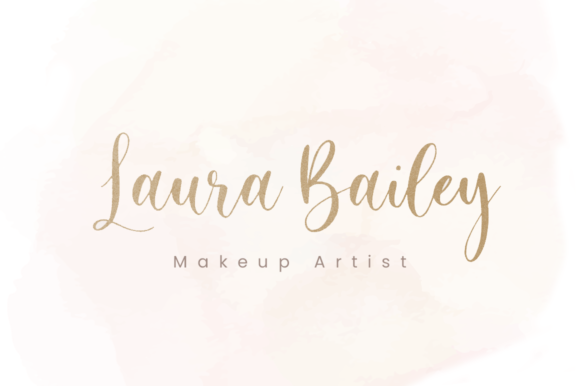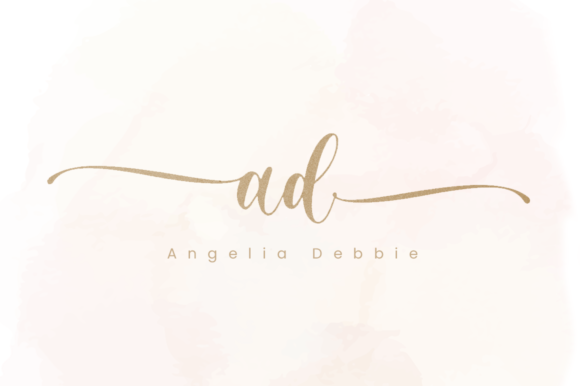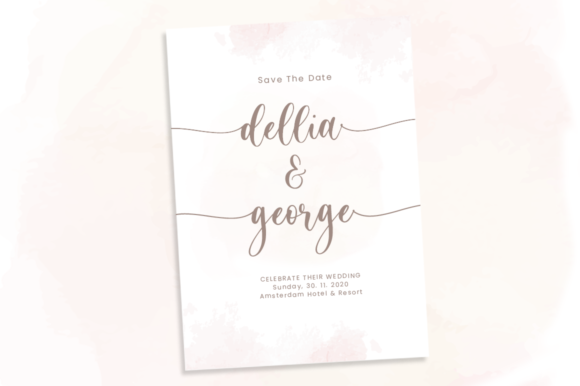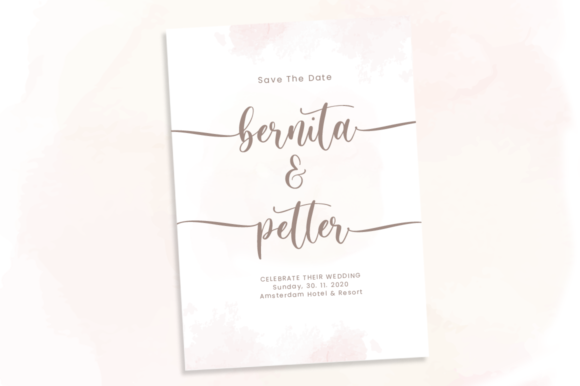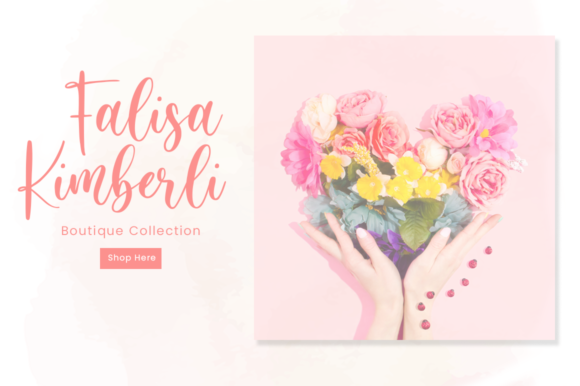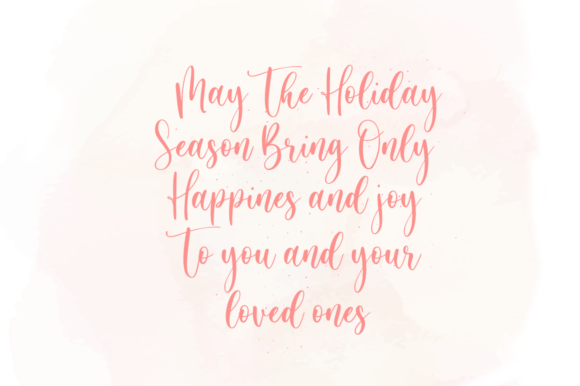
The Perfect Script for Your Most Cherished Moments
As the holiday season approaches, you can almost feel the excitement building up inside you. It’s the time of the year when creativity knows no bounds, and the world is full of possibilities. You’re browsing through a design blog, scrolling through Pinterest, or perhaps sketching out ideas in your notebook – and suddenly, you stumble upon the perfect script to elevate your holiday designs. It’s elegant, flowing, and exudes a sense of warmth and sophistication.
This is where the Holiday Party Font comes into the picture. Designed to add a touch of handwritten elegance to your designs, this beautiful script font is perfect for wedding invitations, thank-you cards, quotes, and so much more. With its varying baseline, smooth lines, gorgeous glyphs, and stunning alternates, it’s no wonder that designers and creatives are falling in love with this font.
Holiday Party Font Key Features
- Unique Characteristics: Holiday Party Font features a festive, cursive design with a mix of uppercase and lowercase letters, perfect for adding a touch of holiday cheer to your designs.
- Script and Ornament Options: The font includes a range of script and ornament options, allowing you to add intricate details and flourishes to your designs.
- Language Support: Holiday Party Font supports a wide range of languages, including English, Spanish, French, German, Italian, and many more.
Review of Holiday Party Font
Overall, I think the Holiday Party Font is a fun and festive addition to any holiday design project. Here are some things that work well:
- ✨ The font’s playful, handwritten feel is perfect for capturing the spirit of the holiday season.
- ✨ The font’s versatility allows it to be used for a wide range of holiday-themed projects, from greeting cards to social media graphics.
- ✨ The font’s bold, eye-catching style makes it easy to grab the viewer’s attention.
- ⚠️ The font may not be suitable for more formal or traditional holiday designs, as it has a bit of a playful, casual feel.
- ⚠️ Some of the font’s characters may not be as detailed or intricate as others, which could be a limitation for designers who want to create more complex holiday designs.
Overall, I think the Holiday Party Font is a great choice for designers who want to add a bit of festive flair to their holiday projects. While it may not be suitable for every design, it’s a fun and versatile option that’s sure to add some holiday cheer to any project.
Tips for Getting the Most Out of “Holiday Party Font”
1. Use “Holiday Party Font” to add a festive touch to your designs.
2. Pair it with bold, bright colors to create a fun and playful atmosphere.
3. Experiment with different font sizes and styles to add visual interest.
1. Holiday party invitations and decorations.
2. Christmas card and gift tag designs.
3. Social media graphics and advertisements for holiday promotions.